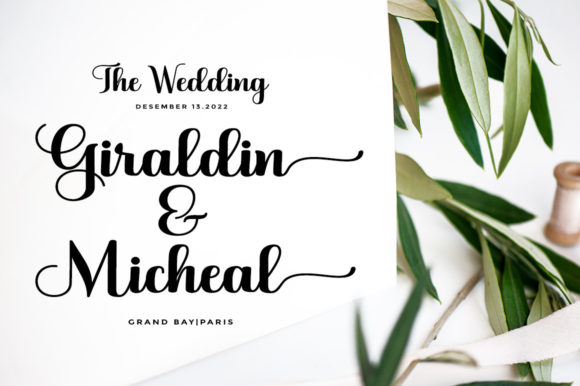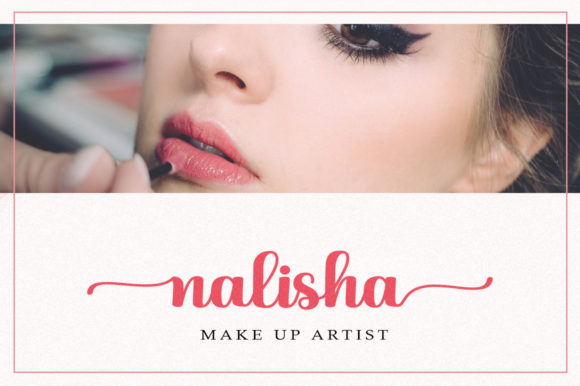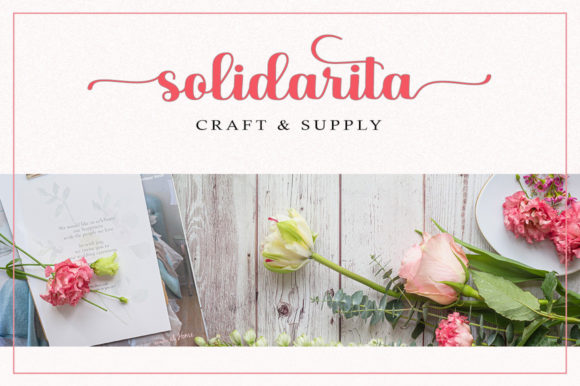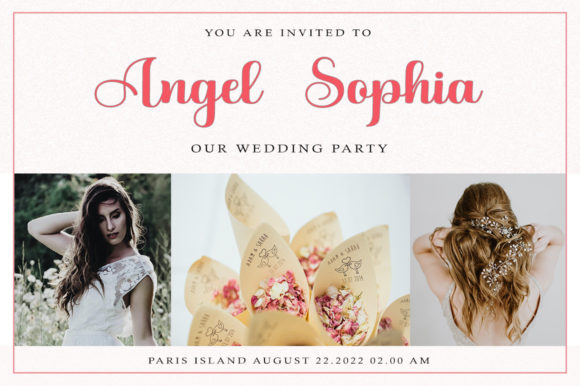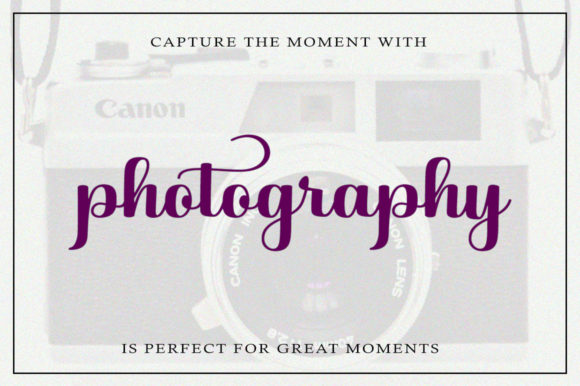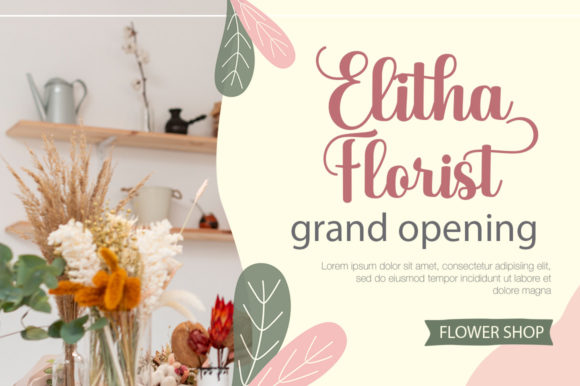
Meet Your New Design BFF: Baby Girly Font
As a designer, there’s nothing quite like the rush of finding the perfect font to bring a project to life. You’re scrolling through font libraries, and suddenly, a charming handwritten script catches your eye. You can almost imagine the beautiful, flowing lines dancing across your design. That’s exactly what happens when you meet the Baby Girly Font.
This elegant font is more than just a pretty face – it’s a versatile tool that can elevate any design from whimsical to sophisticated. With its PUA encoding, accessing all the glyphs and swashes is a breeze, making it a valuable addition to any designer’s toolkit. Whether you’re creating invitations, social media graphics, or even children’s book illustrations, the Baby Girly Font is sure to bring a touch of magic to your work.
Baby Girly Font Key Features
- Unique Characteristics: The font features a cursive, handwritten style with a whimsical touch, making it perfect for creating a playful and feminine look.
- Kerning and Ligatures: The font includes advanced kerning and ligature pairs, ensuring smooth text rendering and a professional look.
Designer Review: Baby Girly Font
At first glance, I was drawn to the whimsical and playful nature of Baby Girly Font. It’s a font that exudes warmth and innocence, making it perfect for creating a feminine and childlike atmosphere.
- ✨ Unique and creative character set: The font’s custom characters and ligatures add a touch of personality to any design.
- ✨ Versatile: Baby Girly Font can be used in a variety of projects, from children’s book illustrations to greeting cards and packaging design.
- ✨ Friendly and approachable: The font’s rounded edges and soft curves make it perfect for conveying a sense of warmth and approachability.
- ⚠️ Limited legibility at small font sizes: While the font looks great at larger sizes, it can become difficult to read at smaller sizes.
- ⚠️ Not ideal for formal or professional projects: The font’s playful nature may not be suitable for more serious or formal designs.
Overall, Baby Girly Font is a delightful addition to any designer’s toolkit. While it may have some limitations, its unique character set and versatility make it a great choice for projects that require a touch of whimsy and playfulness.
Tips for Getting the Most Out of Baby Girly Font
For best results, use Baby Girly Font in designs that require a playful and feminine touch. Pair it with bright colors and whimsical illustrations to create a visually appealing design.
Baby Girly Font is ideal for:
- Baby shower invitations and decorations.
- Women’s fashion and beauty branding.
- Children’s clothing and accessories branding.
Alternatives to Baby Girly Font
Great Vibes is a beautiful, handwritten script font that is perfect for adding a touch of elegance and sophistication to your designs. It is ideal for use in wedding invitations, quotes, and other creative projects where a unique and personal touch is desired. Great Vibes is a more refined and elegant alternative to Baby Girly Font, with a wider range of letterforms and more nuanced character.
Carolyna Pro is a modern, elegant script font that is designed to evoke the feeling of classic calligraphy. It is perfect for use in high-end branding, advertising, and editorial design projects where a touch of sophistication and glamour is desired. Carolyna Pro is a more polished and refined alternative to Baby Girly Font, with a wider range of ligatures and more complex letterforms.
Q: What is the recommended font size and line height for using the Baby Girly Font?
The recommended font size for the Baby Girly Font is between 12pt and 24pt. For optimal readability, we recommend a line height of at least 1.2 times the font size.